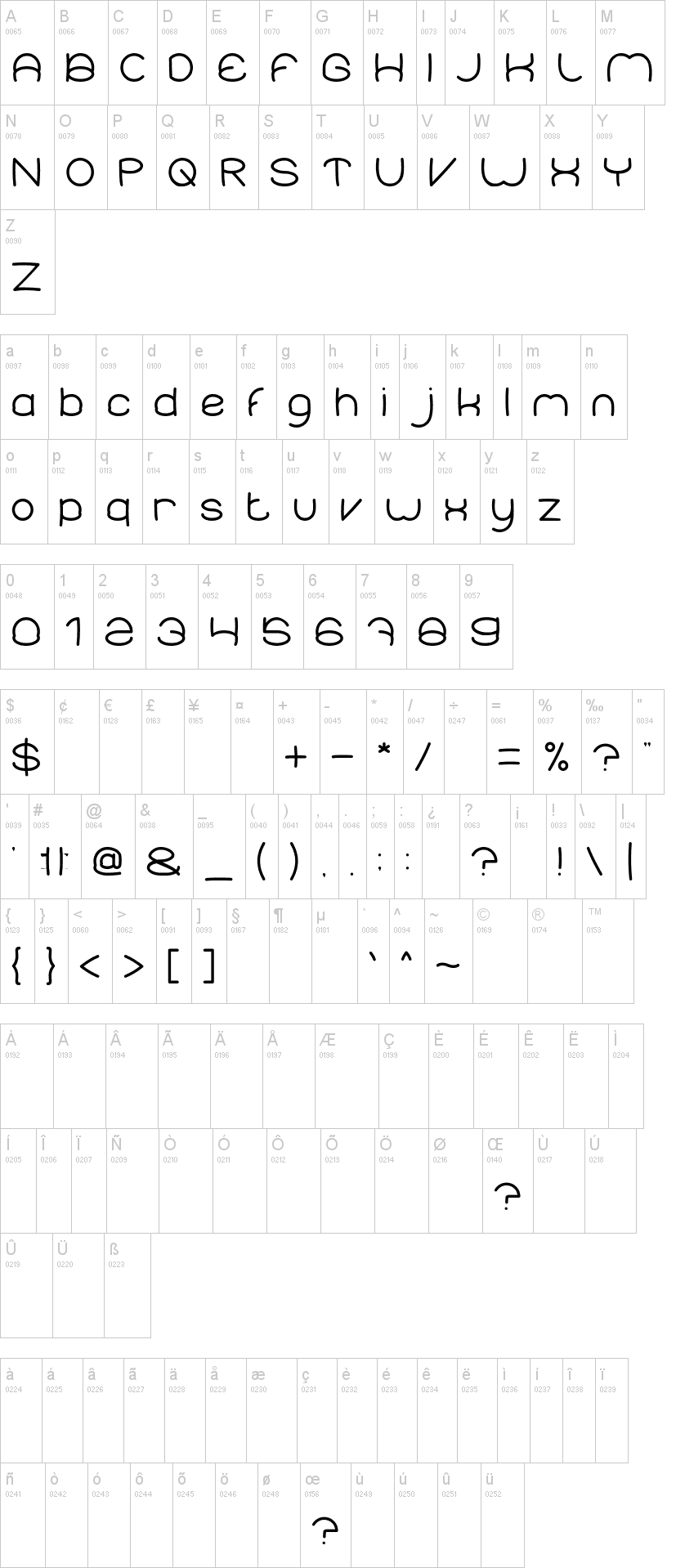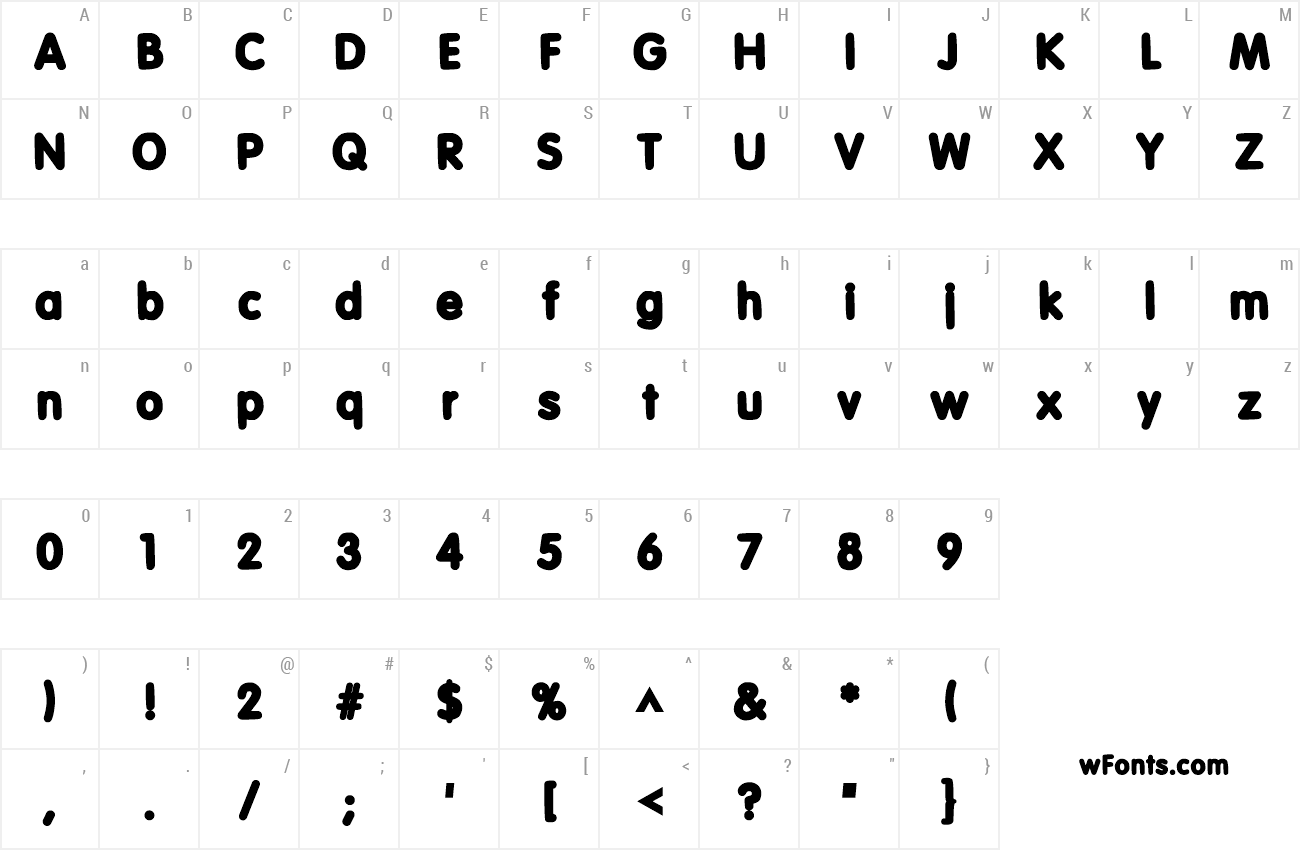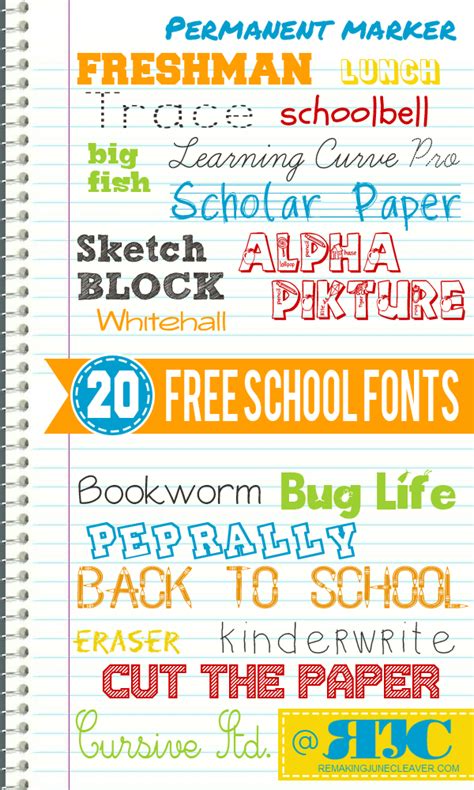
How To Choose The Right Elementary School Fonts
Choosing the right font for your elementary school can be a tricky task. Whether you’re designing a school logo or creating a school newsletter, the font you choose can have a huge impact on how your school is perceived. The font you choose can convey a certain message and style and can also help create an identity for your school. But with so many fonts to choose from, how can you find the right one that stands out among the rest? In this article, we’ll explore how to choose the right elementary school font, so you can create a memorable and unique identity for your school.
Consider Your School’s Style and Message
When choosing a font for your elementary school, it’s important to consider the style and message you want to convey. Are you looking for a font that’s bold and modern, or one that’s classic and timeless? Do you want a font that’s playful and fun, or one that’s serious and authoritative? Each font has its own personality, so it’s important to choose one that accurately reflects your school’s style and message.
Think About Legibility
Legibility is also an important factor to consider when choosing a font for your elementary school. You want to make sure the font is easy to read so that your students and staff can easily understand the message. Slanted fonts and fonts with thin lines can be difficult to read, so be sure to choose a font that is clear and legible.
Stick With Simple Fonts
As tempting as it may be to choose a fun and unique font, it’s best to stick with a simple font that is easily recognizable. The more complex a font is, the harder it may be to read, and it may also look a bit outdated. A simple font such as Arial or Times New Roman is a great option for elementary schools since it is legible and timeless.
Choose a Font With Accents
For a bit of pizzazz, you can also choose a font with accents or special characters. Accents can add personality to your school’s font and can make it stand out from the rest. There are plenty of fonts with accents and special characters available, so you can be sure to find one that best reflects your school’s style.
Choosing the right font for your elementary school can be a daunting task, but with a bit of research and consideration, you can find the perfect font that reflects your school’s style and message. Consider the school’s style and message and look for a font that is legible, simple and timeless. You can also choose a font with accents or special characters to add a bit of personality to your font. With the right font, you can create a unique and memorable identity for your school.